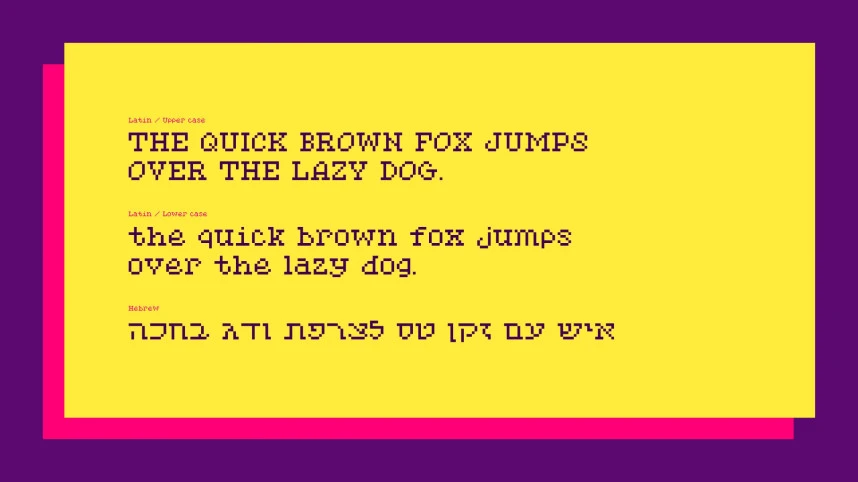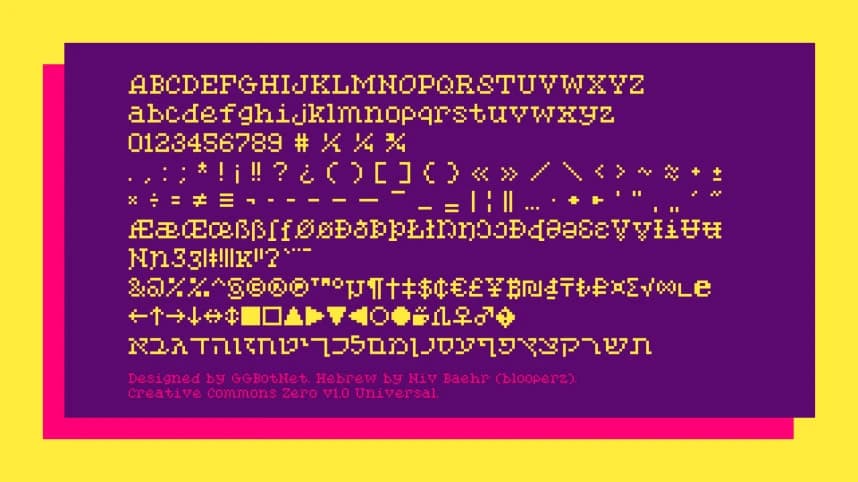
Pixelated Elegance Font
Pixelated Elegance Font combines retro pixel aesthetics with a decorative, almost handcrafted personality. The gallery images show chunky square-based forms softened by playful curves, uneven contours, and ornamental details that keep the font from feeling strictly mechanical.
Pixelated Elegance